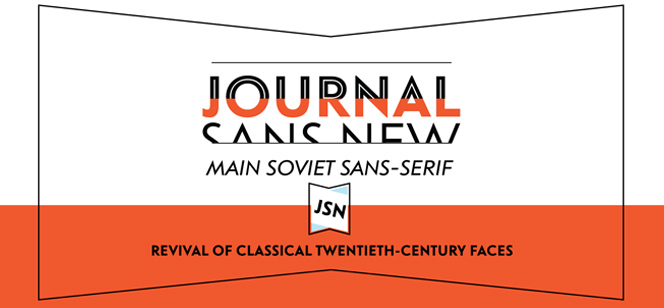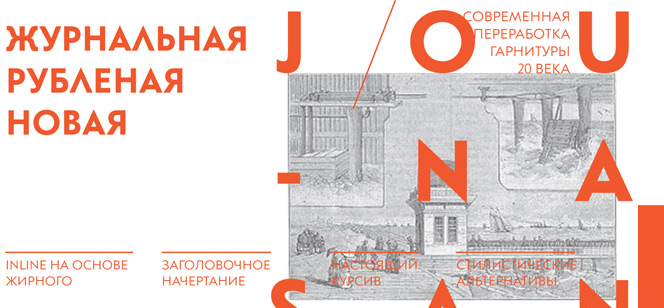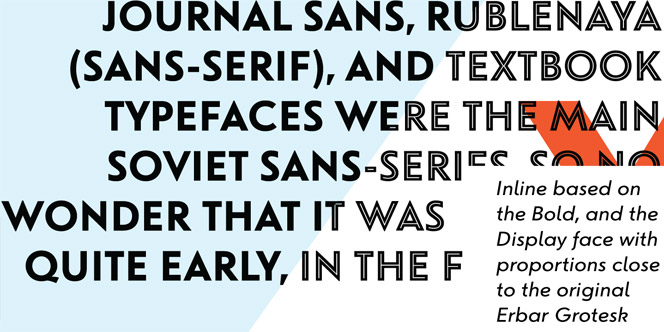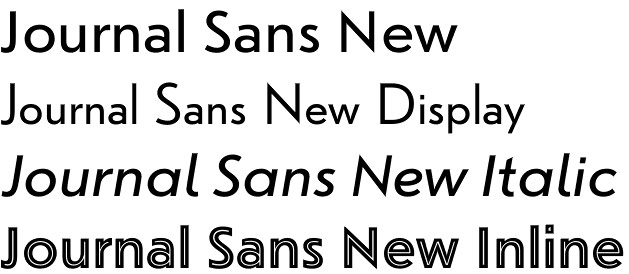
Journal Sans New font
Journal Sans New font by the Russian designers Maria Selezeneva and Alexandra Korolkova (ParaType foundry) is an accurately upgraded version of the popular Journal Sans typeface. The typeface family consists of 6 fonts: Display, Regular, Italic, Oblique, Inline, and Bold.
The Journal Sans font was originally developed in 1940–1956 in Moscow by a group of designers under the guidance of Anatoly Schukin. The typeface was based on Erbar Grotesk by Jacob Erbar and Metro Sans by William A. Dwiggins, the geometric sans-serifs of the 1920s with the pronounced industrial spirit. Journal Sans was one of the main Soviet sans-serifs, and that’s the reason for its early digitalizing, in the first half of 1990s. Recently, Journal Sans consisted of three variations and suffered all the problems of early digitalization, i.e. inaccurate curves or side-bearings copied straight from metal-type version.
In the Journal Sans New font release, besides minor improvements, a substantial work has been carried out to make the old typeface work better in the contemporary typography and graphic design. Maria Selezeneva significantly worked over the design of some glyphs, expanded the character set, added some alternatives, completely changed the side-bearings and kerning. Furthermore, three new faces were added, such as true Italic (the older font had slanted version for the italic), an Inline face based on the Bold, and the Display face with proportions close to the original Erbar Grotesk’s.
Journal Sans New font family keeps the industrial spirit of 1920s-1950s, while at the same time is fully adapted to the modern digital reality. It can be useful either for bringing historical spirit into design or for modern and trendy typography, both in print and on-screen.